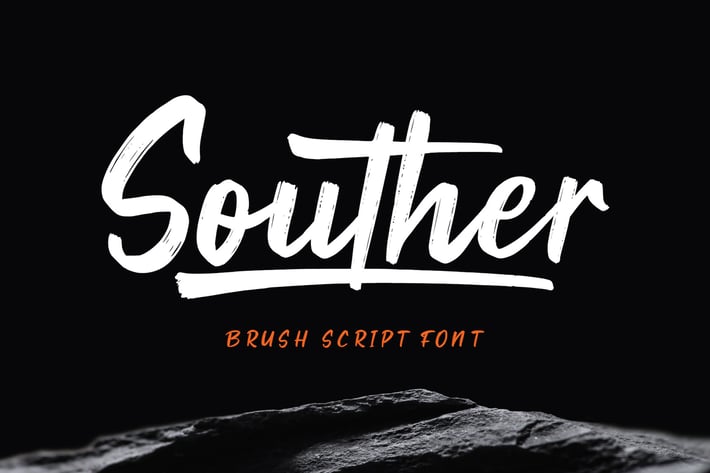
Souther - Brush Script Font
Introducing New Font : Souther - Brush Script Font
Souther - Brush Script Font is an brush script font based on the expression of real handwriting. Souther - Brush Script Font will work perfectly for fashion, e-commerce brands, trend blogs, wedding boutiques or any business that wants to appear upscale and chic.
Souther - Brush Script Font also Suitable for Logo, greeting cards, quotes, posters, branding, name card, stationary, design title, blog header, art quote, typography, art, modern envelope lettering or book design, happening style like handdrawn design or watercolor design theme, craft design, any DIY project, book title, or any purpose to make your art/design project look pretty and trendy.
1. Uppercase & Lowercase
2. Standard & Special Ligatures (oo ss ll tt y j g y j g e a t t)
3. Numerals & Punctuations (OpenType Standard)
4. Accents/Multilingual characters (AÀÁÂÃÄÅCÇDÐEÈÉÊËIÌÍÎÏNÑOØÒÓÔÕÖUÙÜÚÛWYÝŸỲŸÆŒßÞ)